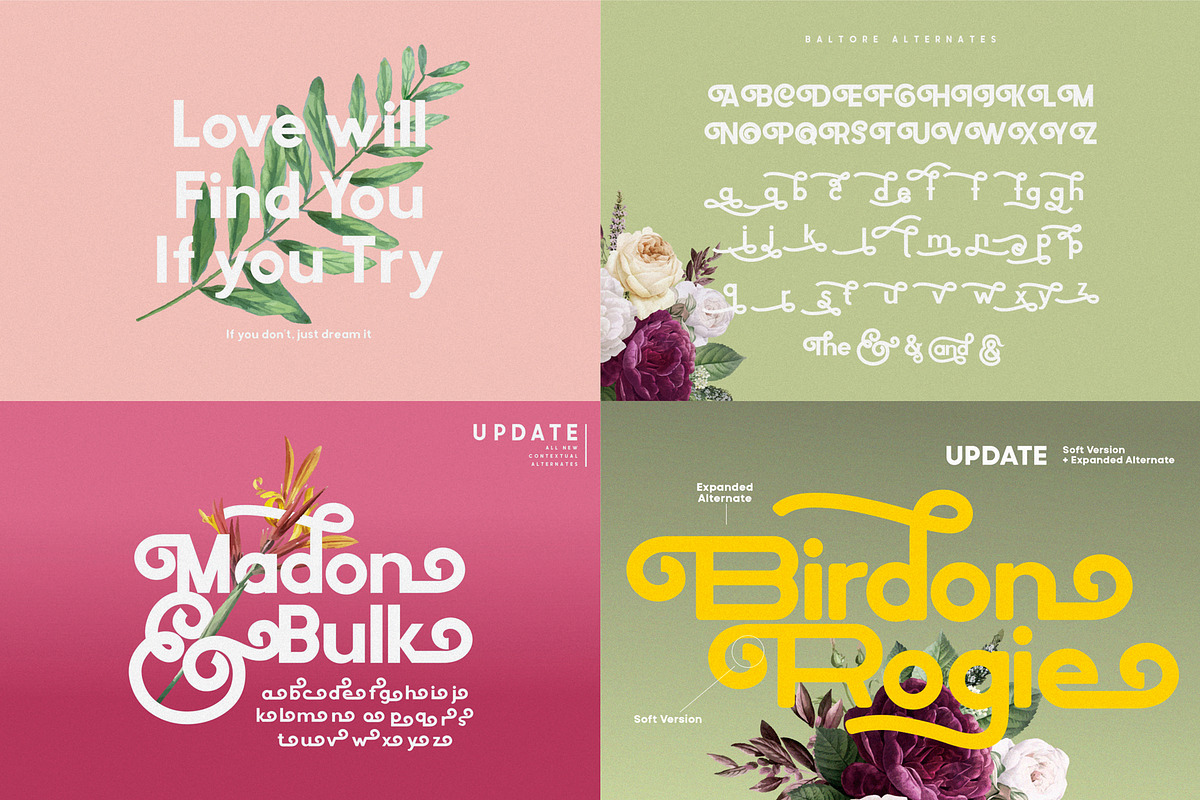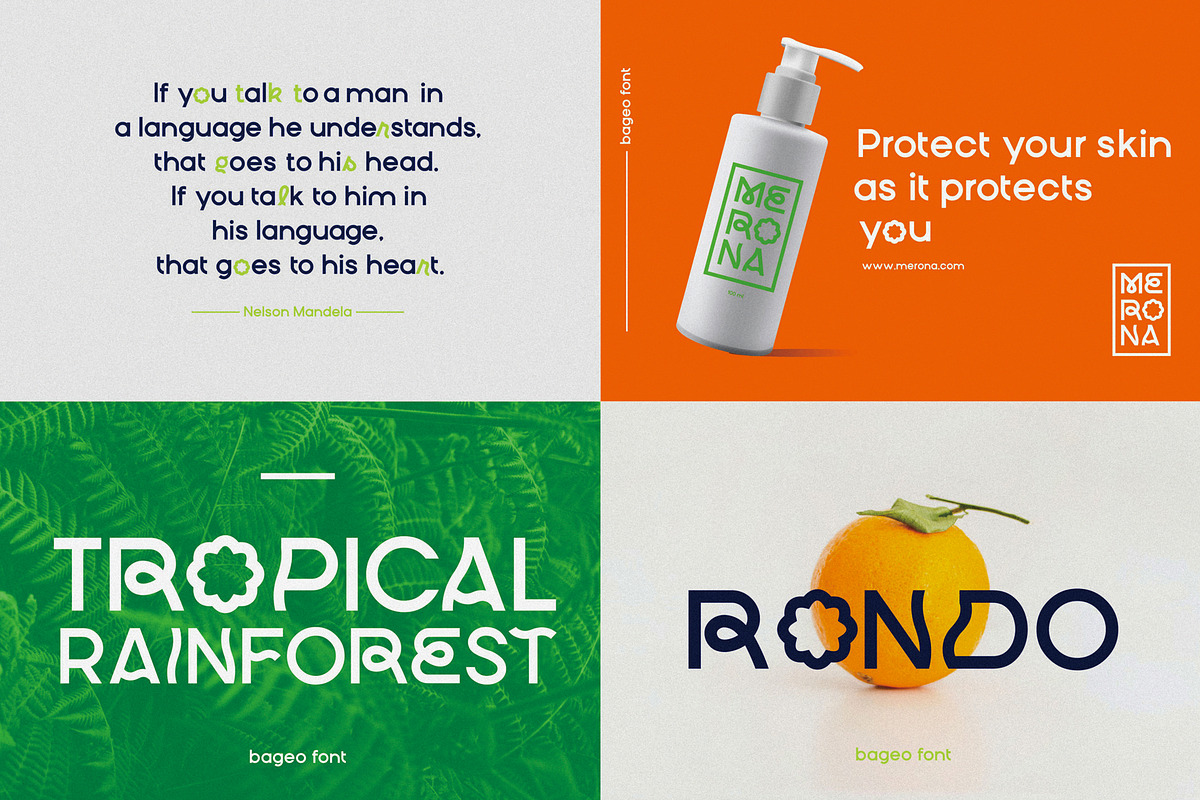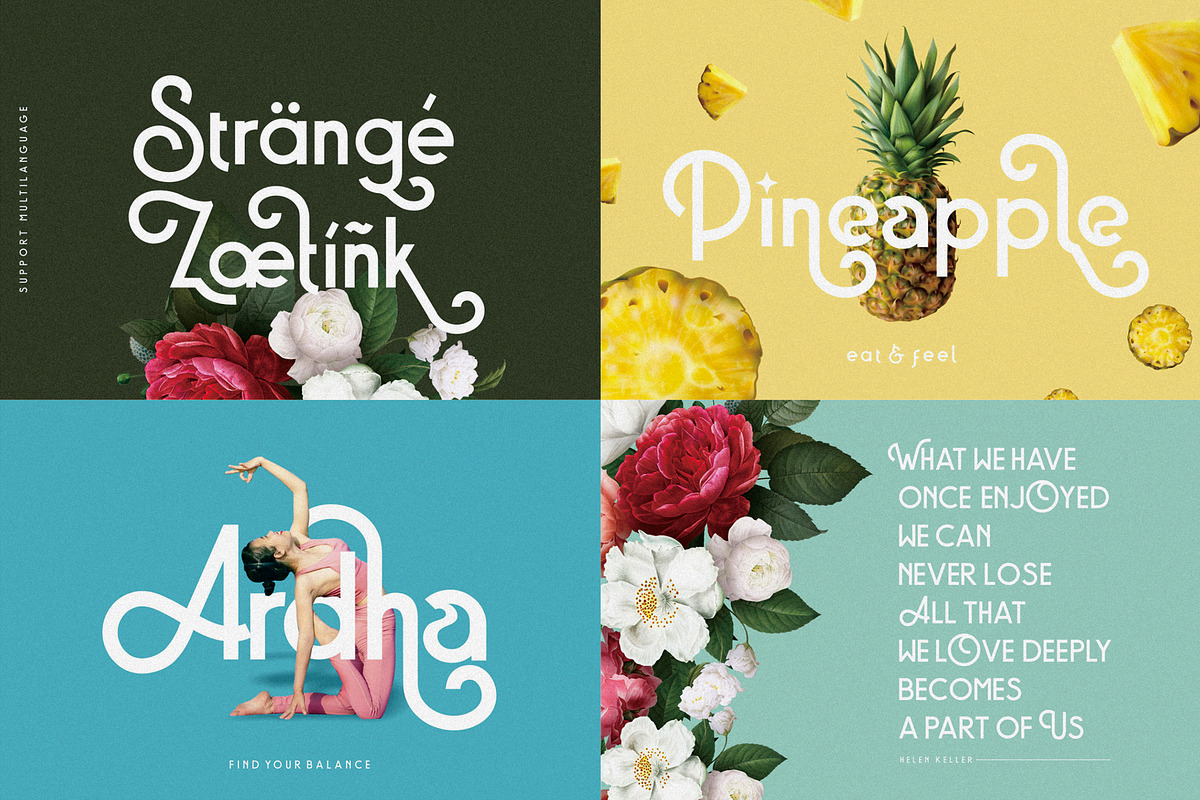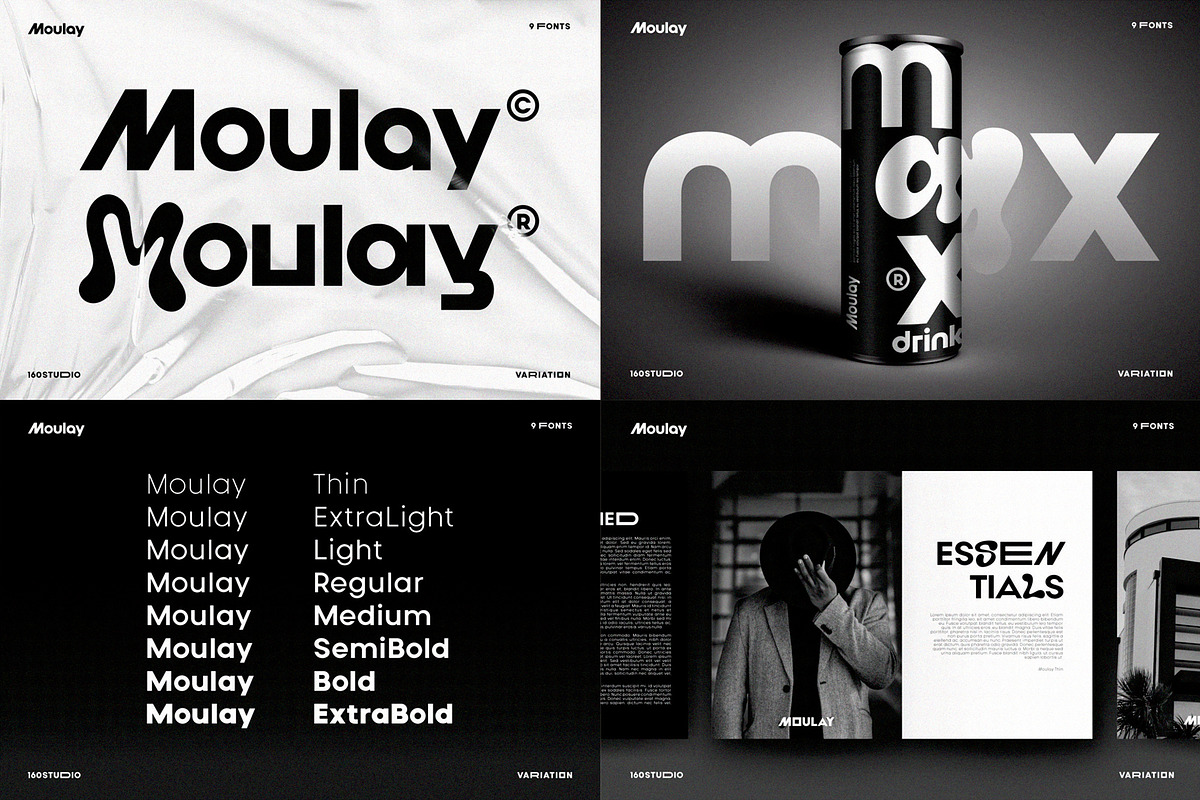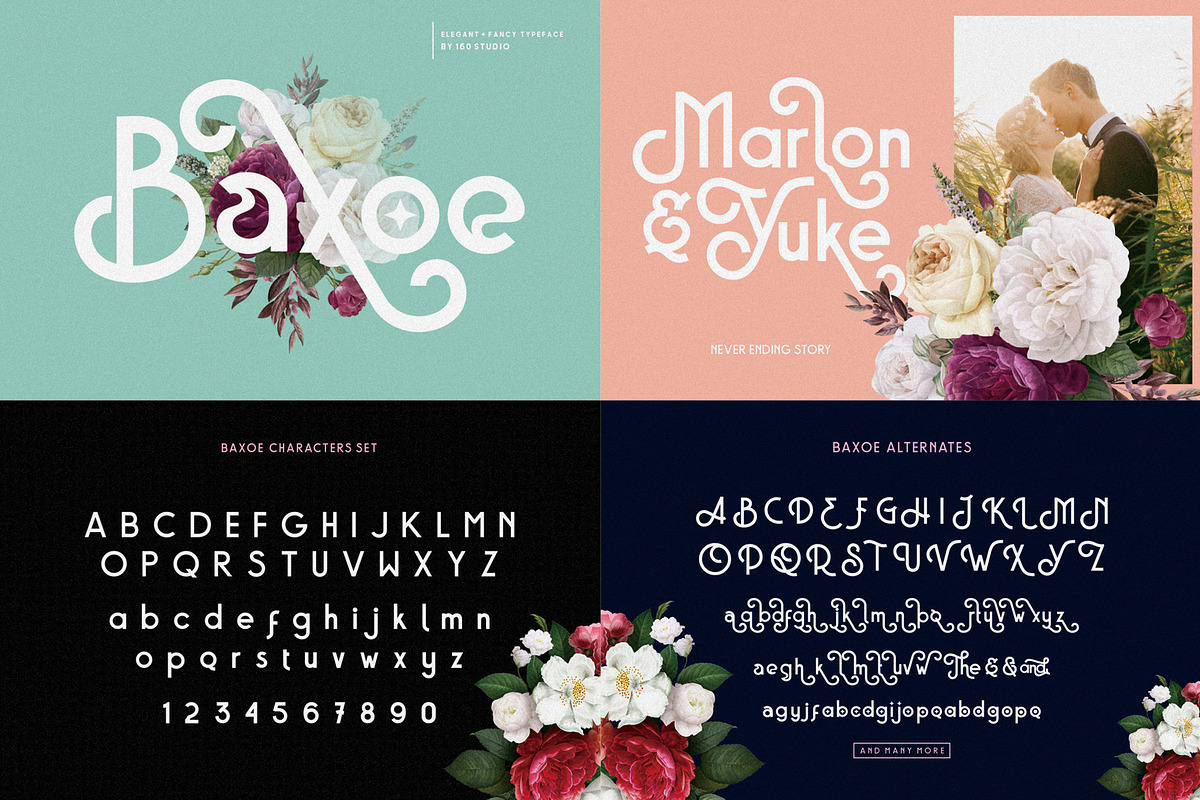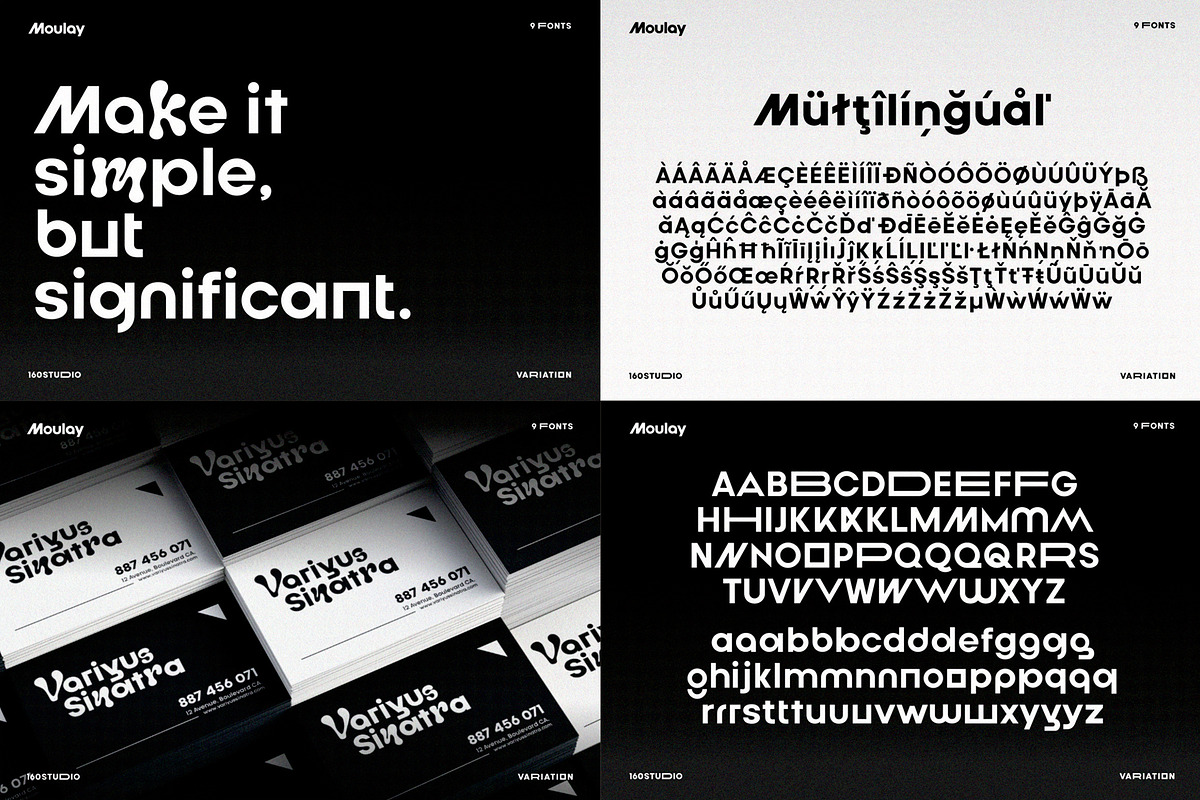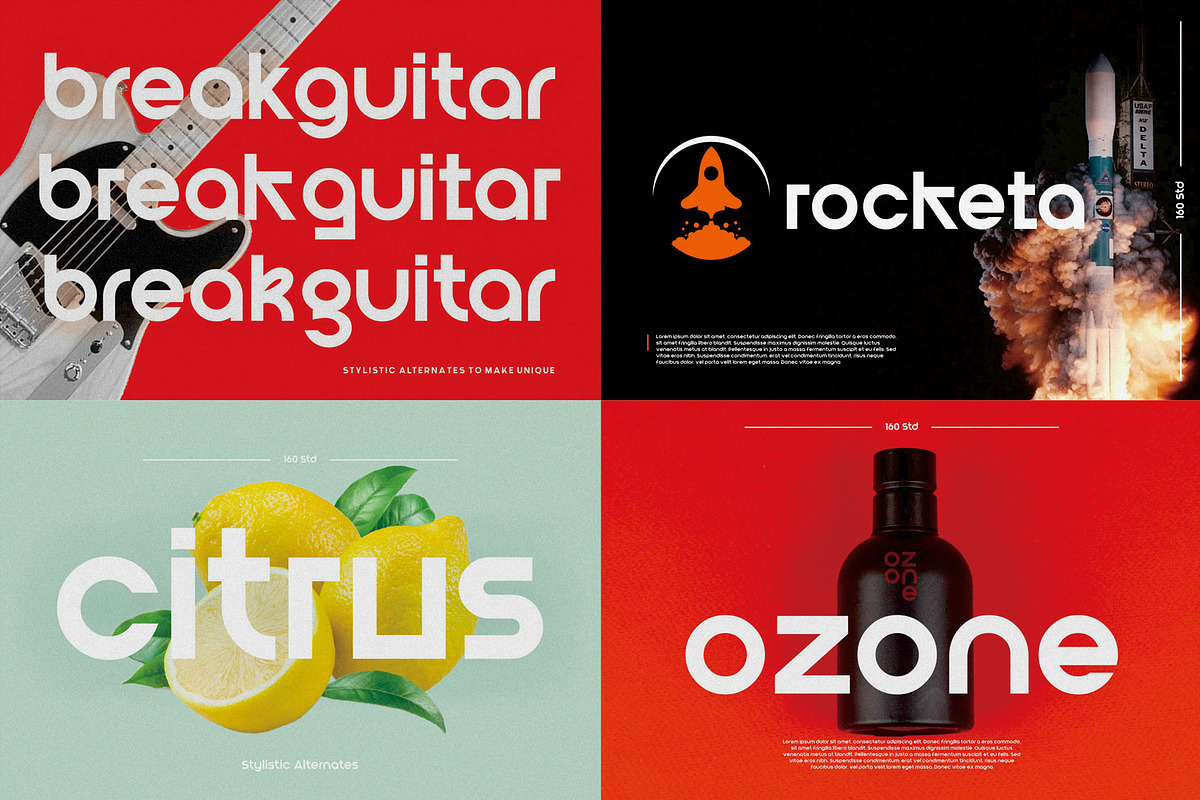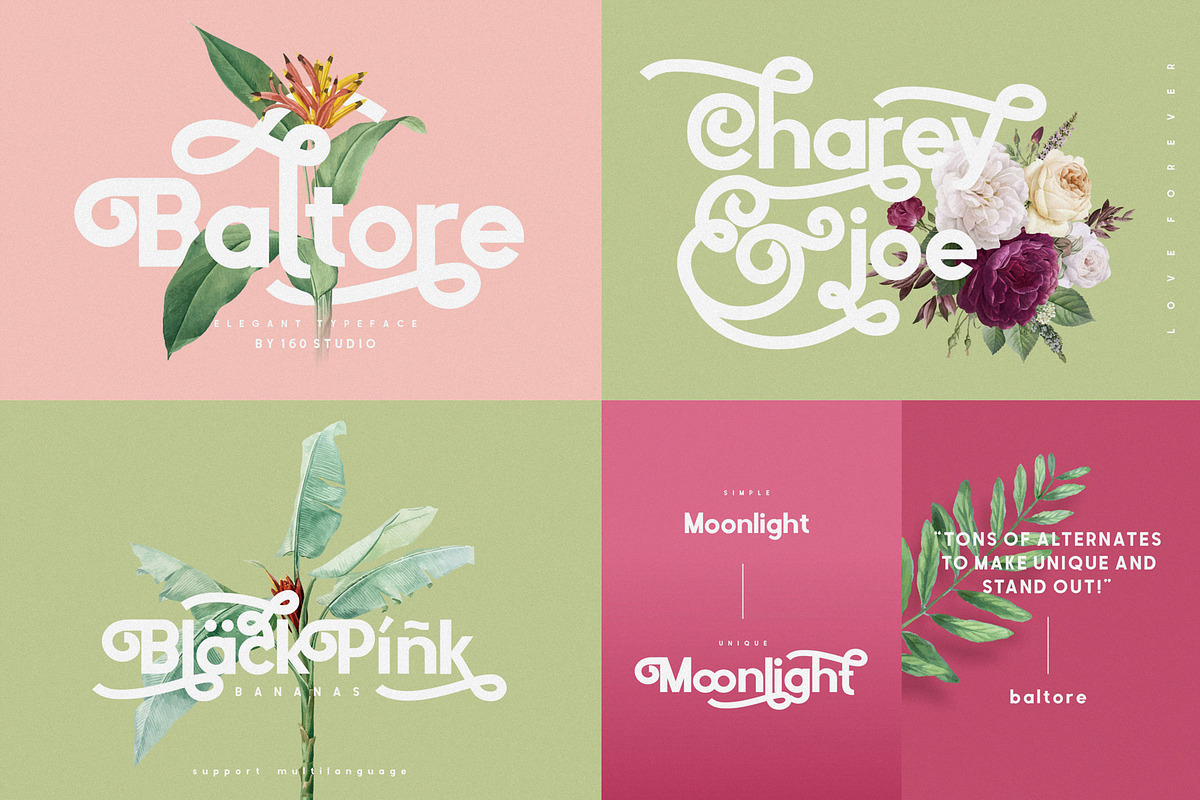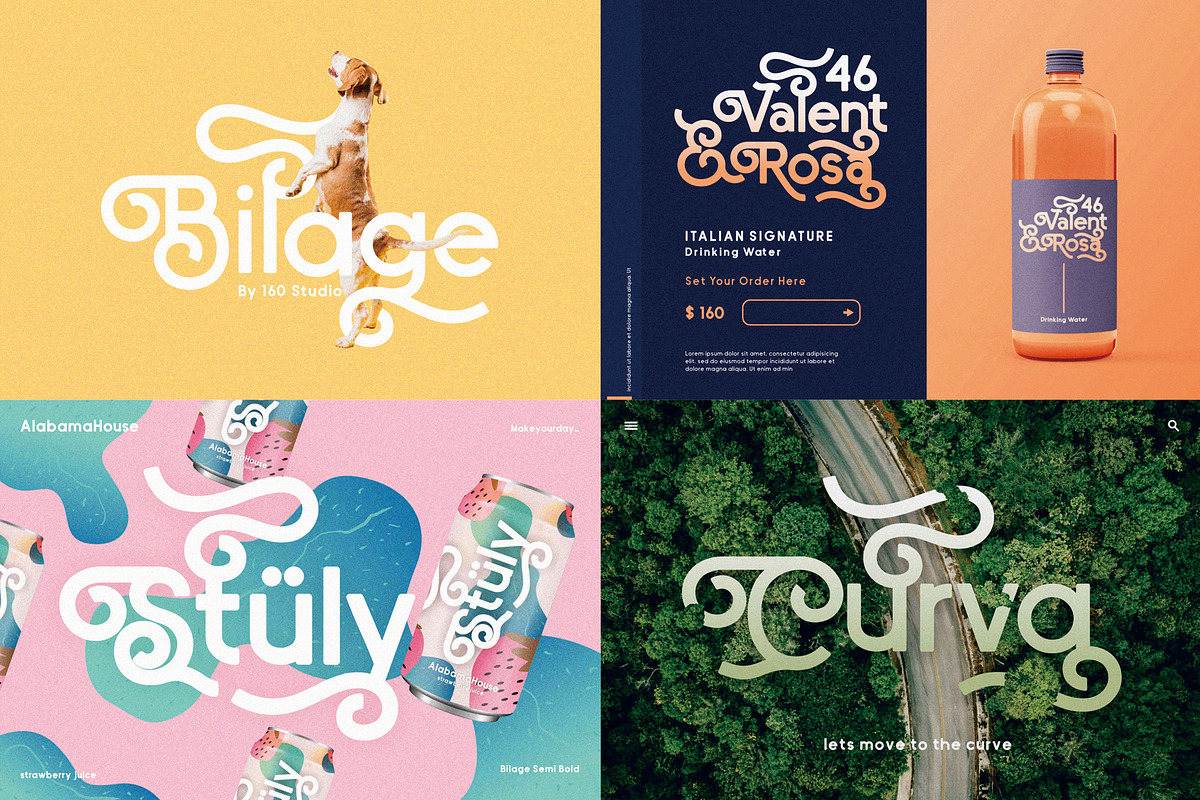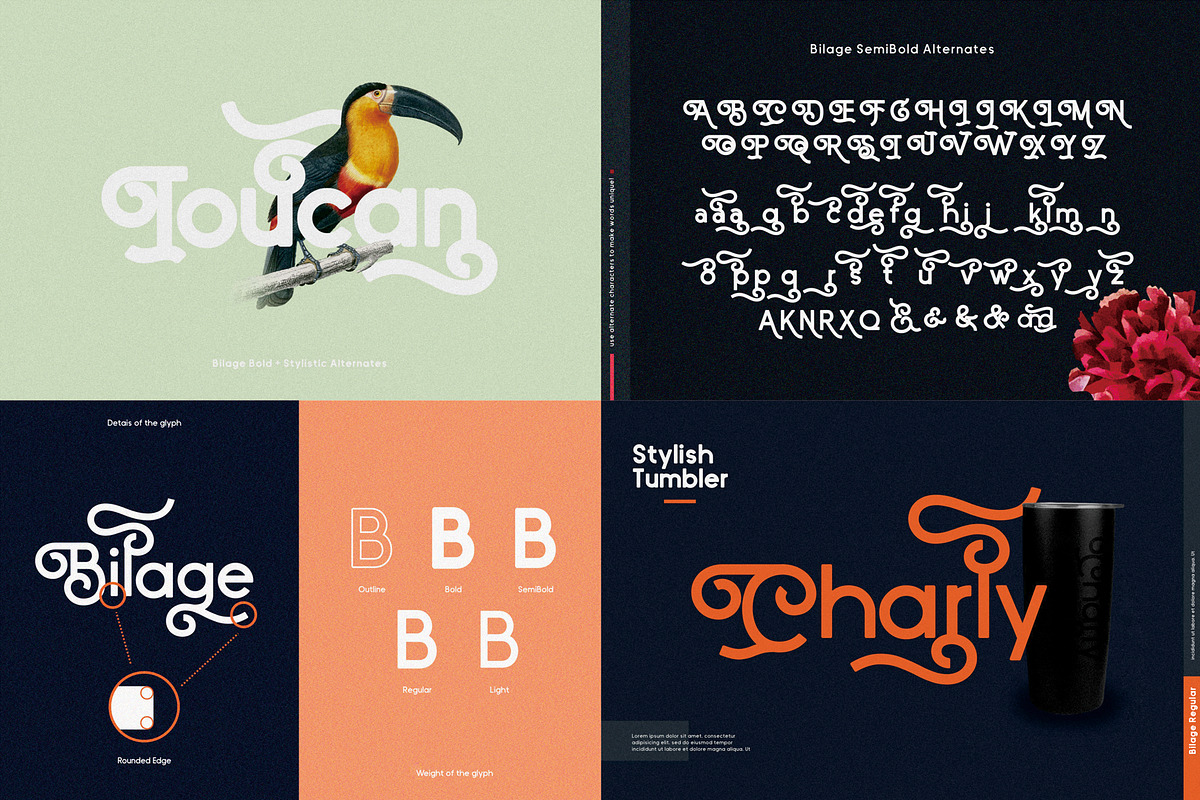
ULTIMATE LOGO FONT BUNDLE
Embrace Limitless Creativity with Our Ultimate Logo Font Bundle!
Step into a world of design possibilities with the Ultimate Logo Font Bundle – a collection crafted to inspire and empower your creativity. Immerse yourself in the perfect fusion of style and functionality through our thoughtfully curated selection of 6 unique and modern typefaces. Each font is a masterpiece, chosen with care to effortlessly elevate your logo design projects.
Unleash your imagination with our best-selling fonts, each exuding a modern, clean, and stylish charm. Dive into a realm of possibilities with unique alternates, multiple stylistic features, and ligatures that add a touch of exclusivity to your designs.
- stylistic alternates
- multilingual support
Fonts Included: